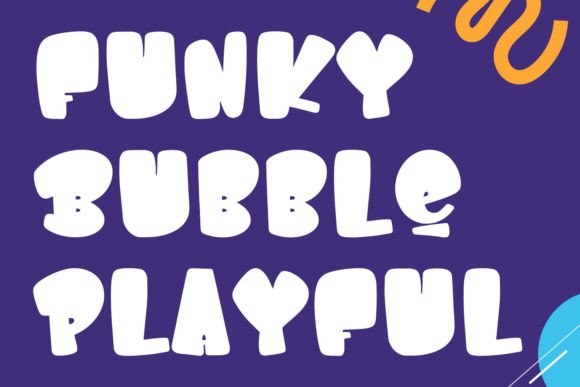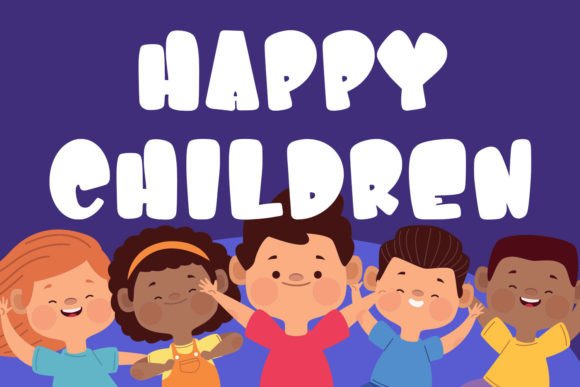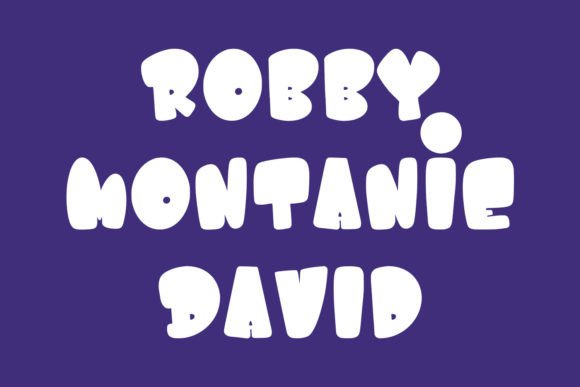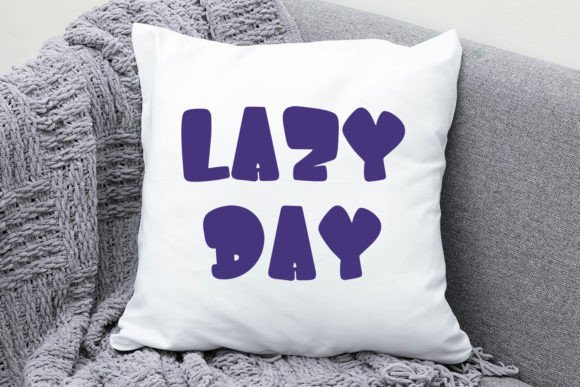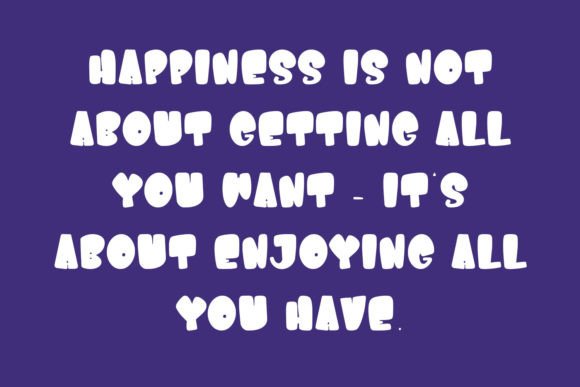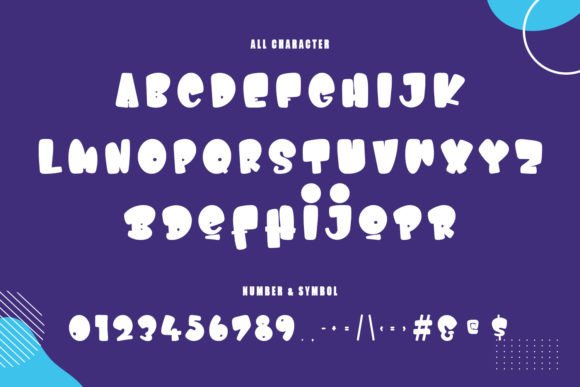
The Magical World of Bloobey Font: A Designer’s Delight
I’ll never forget the time I was working on a children’s book project, and my client asked me to create a title page that would grab the attention of kids and parents alike. I scoured the internet for the perfect font, but nothing seemed quite right. That was until I stumbled upon Bloobey Font. This delightful and whimsical bubble display font has been a game-changer for my designs, and I’m excited to share its magic with you! ✨
A Personal Review of Bloobey Font
- ✨ Bold and playful design: Bloobey Font is perfect for creating eye-catching titles and headings that draw attention and add to the overall appeal of any project.
- ✅ Fun characters and alternate variations: The font comes with a range of fun characters and alternate variations, making it easy to add visual interest to your designs.
- 🎉 Perfect for children’s books: Bloobey Font is specifically designed to capture the imagination and joy of children, making it an ideal choice for creating playful and engaging designs for kids.
While Bloobey Font is an amazing font, there are a few things to keep in mind: 🤔
- ⚠️ Limited use in formal designs: Due to its playful nature, Bloobey Font may not be the best choice for formal designs or projects that require a more professional tone.
- ⚠️ Some characters may require adjustment: Depending on the design, some characters may require adjustment to ensure they fit perfectly with the rest of the text.
The Backstory of Bloobey Font
Bloobey Font was designed with one goal in mind: to capture the imagination and joy of children. The font’s creator, a talented designer with a passion for typography, drew inspiration from classic children’s books and toys to create a font that’s both playful and engaging. With its bold strokes, fun characters, and alternate variations, Bloobey Font is the perfect choice for designers who want to add a touch of whimsy to their designs.
Q: What is Bloobey Font best used for?
A: Bloobey Font is perfect for creating playful and engaging designs for children, such as titles and headings for children’s books, posters, and social media graphics.